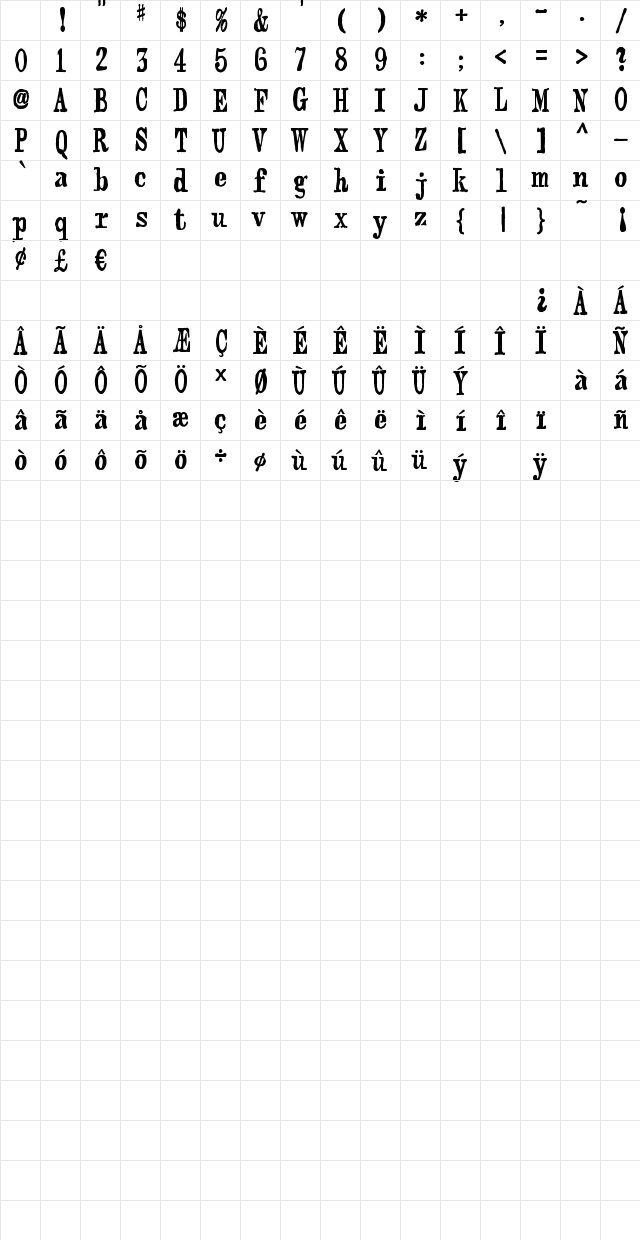
Complete webster Regular glyph index. Displaying only characters natively supported by webster Regular font.
webster is a composed and adaptable typeface that performs quietly and consistently across a wide range of design contexts.